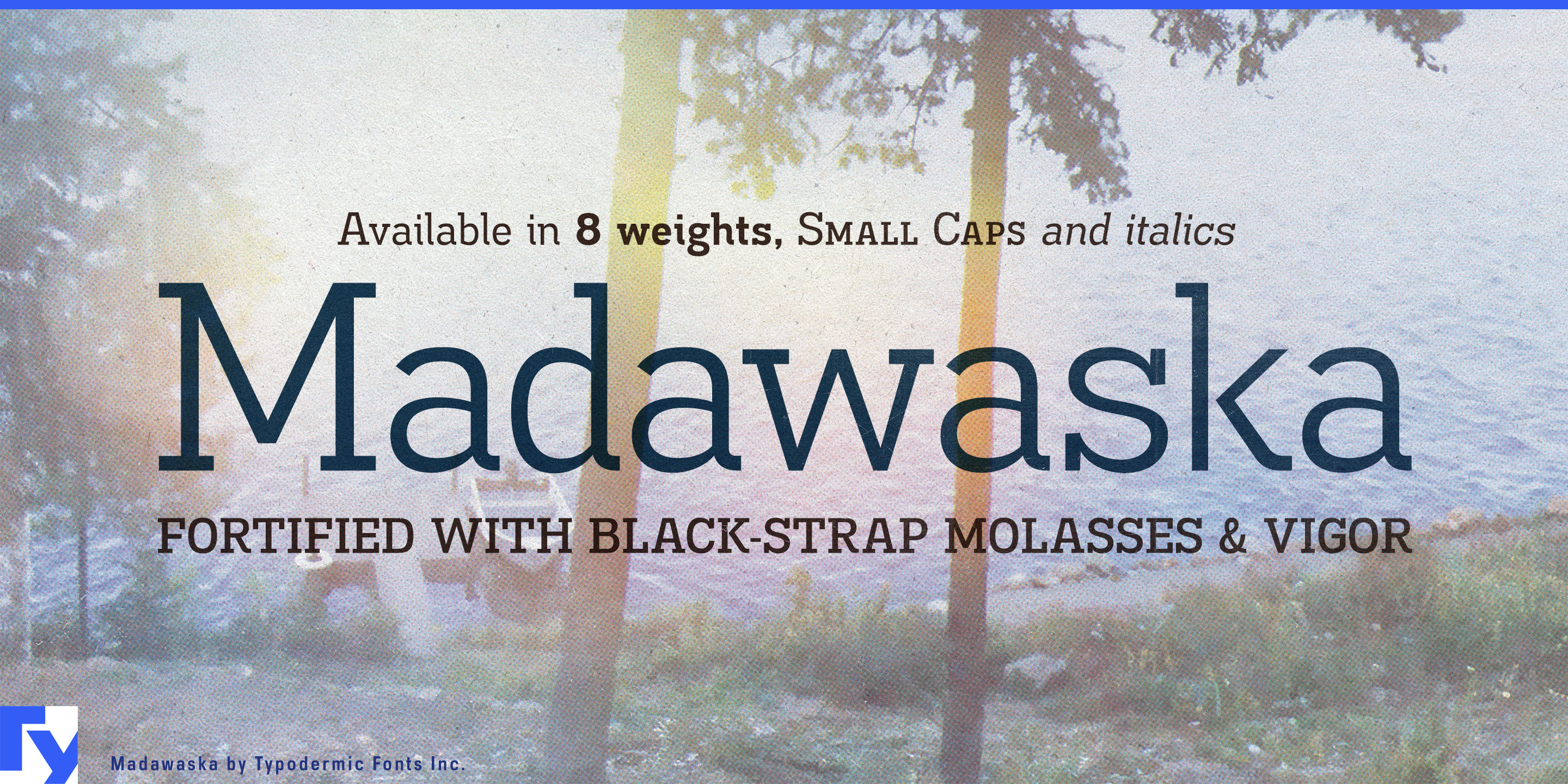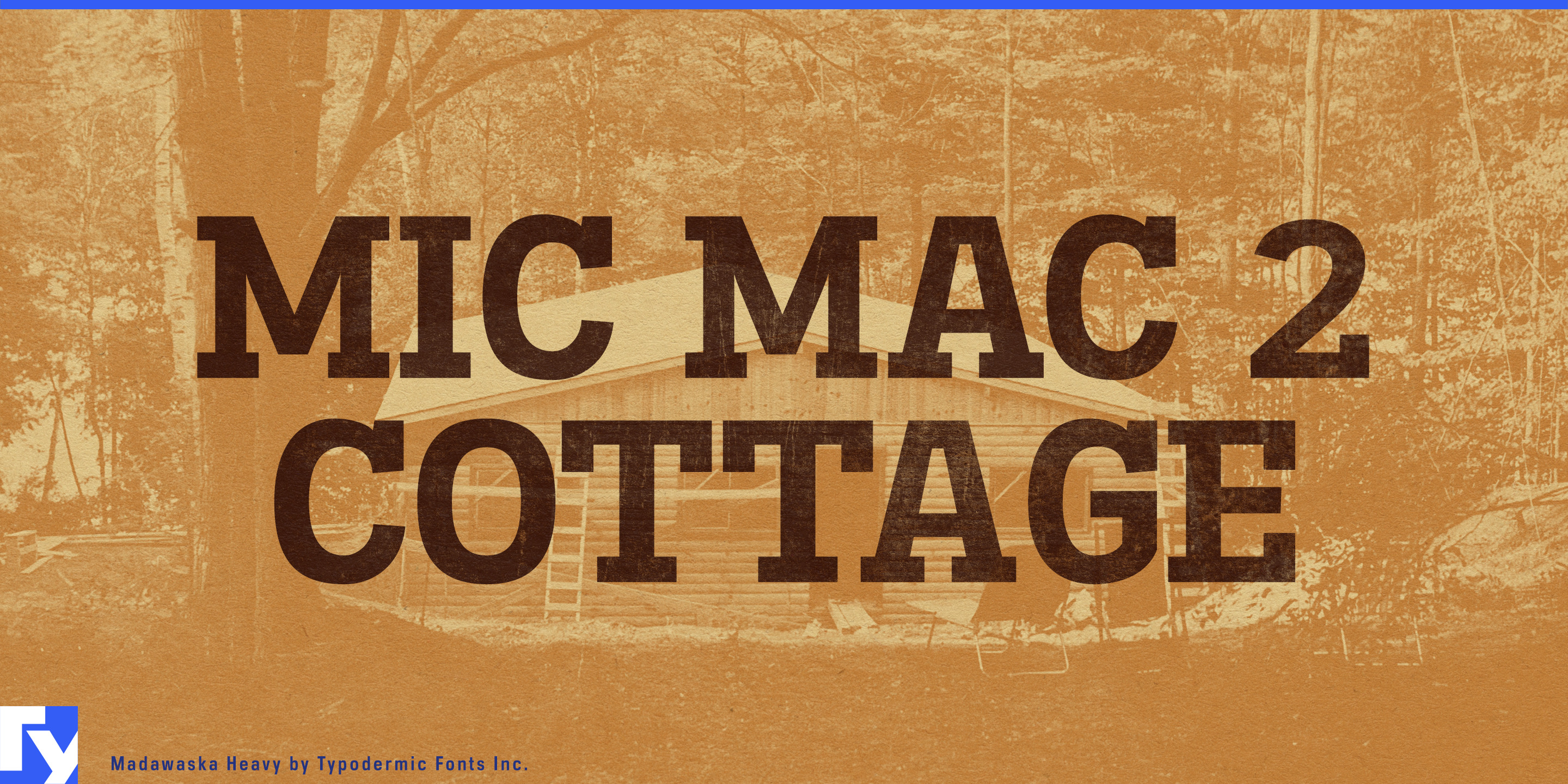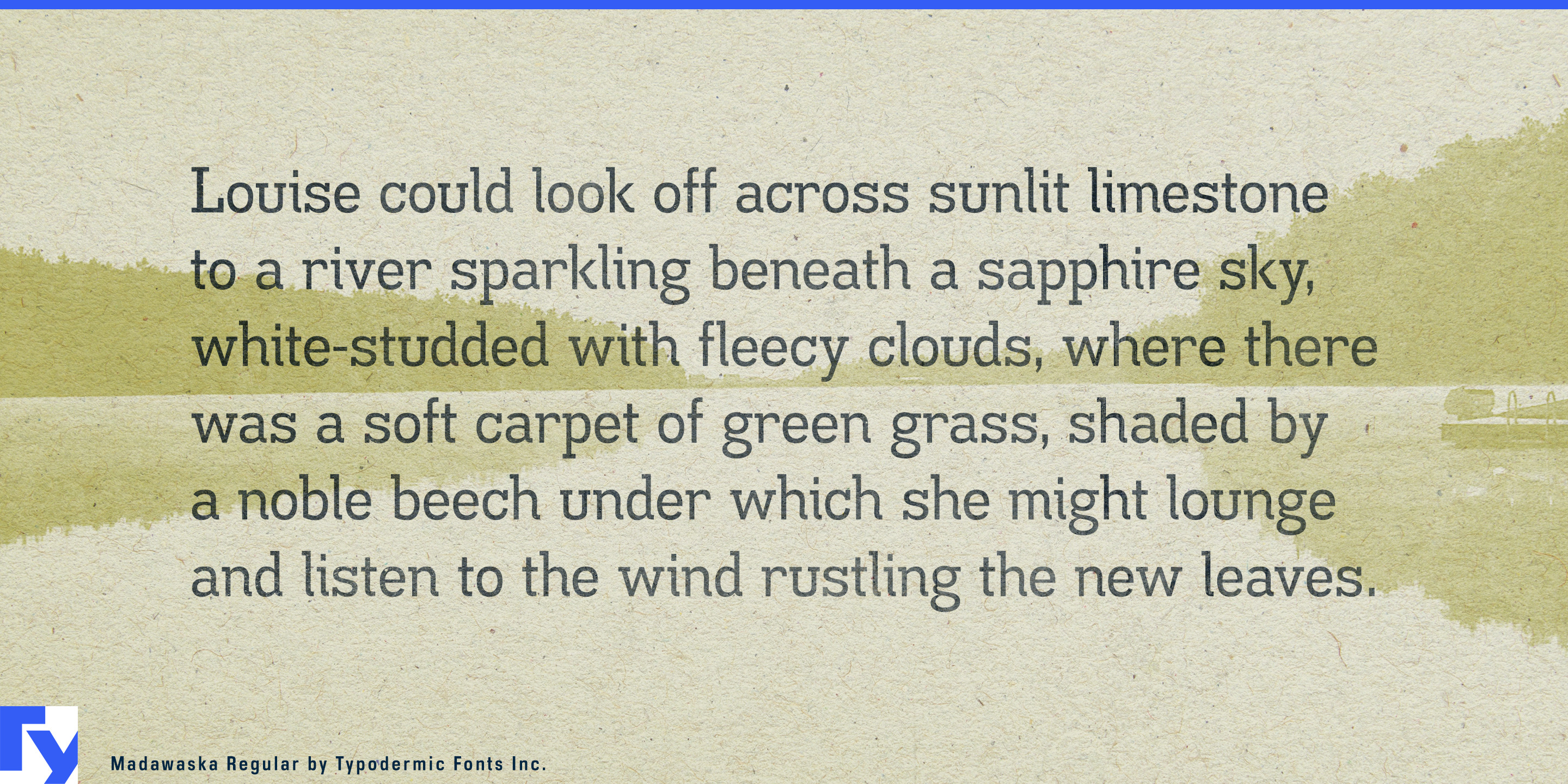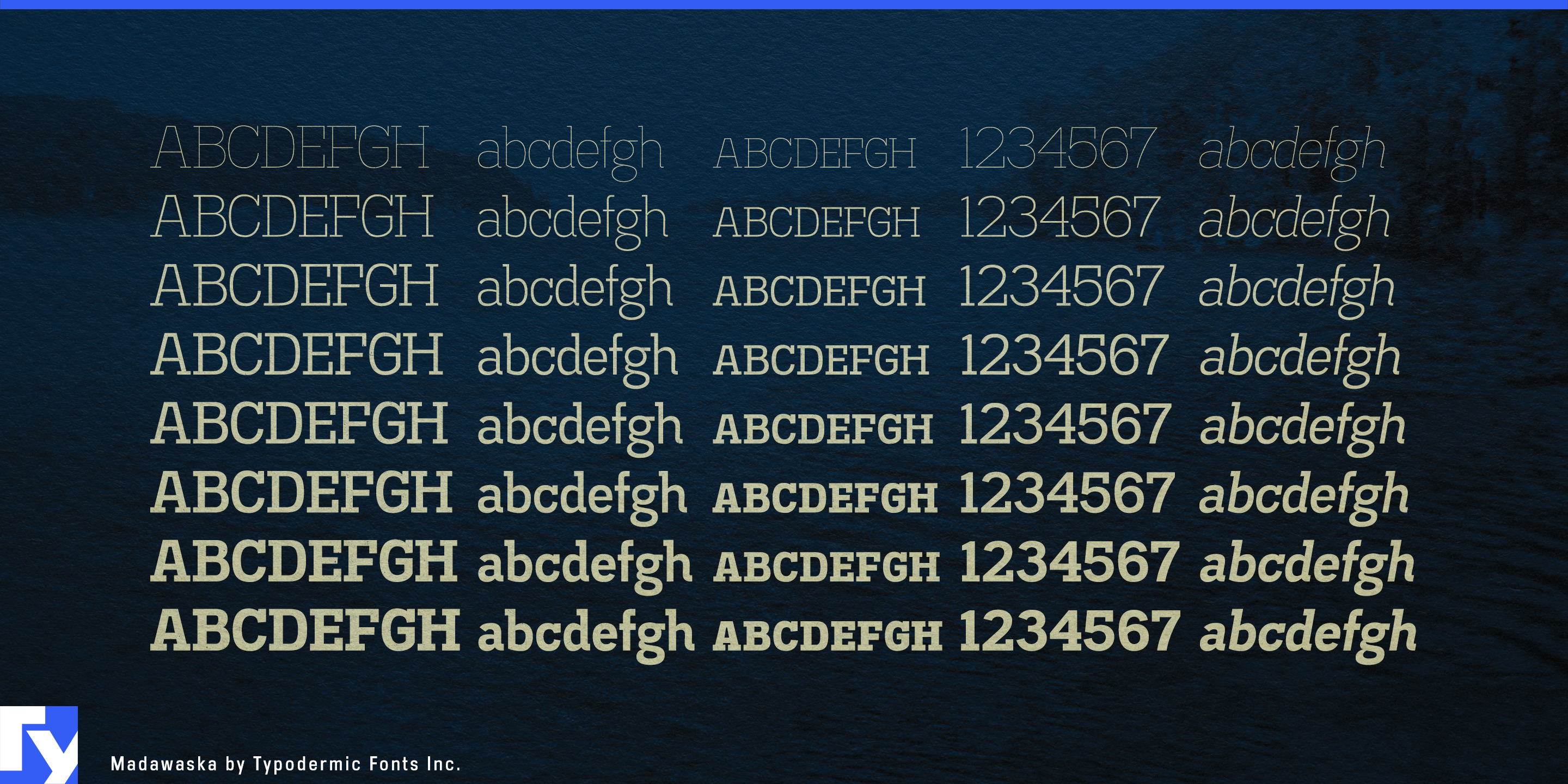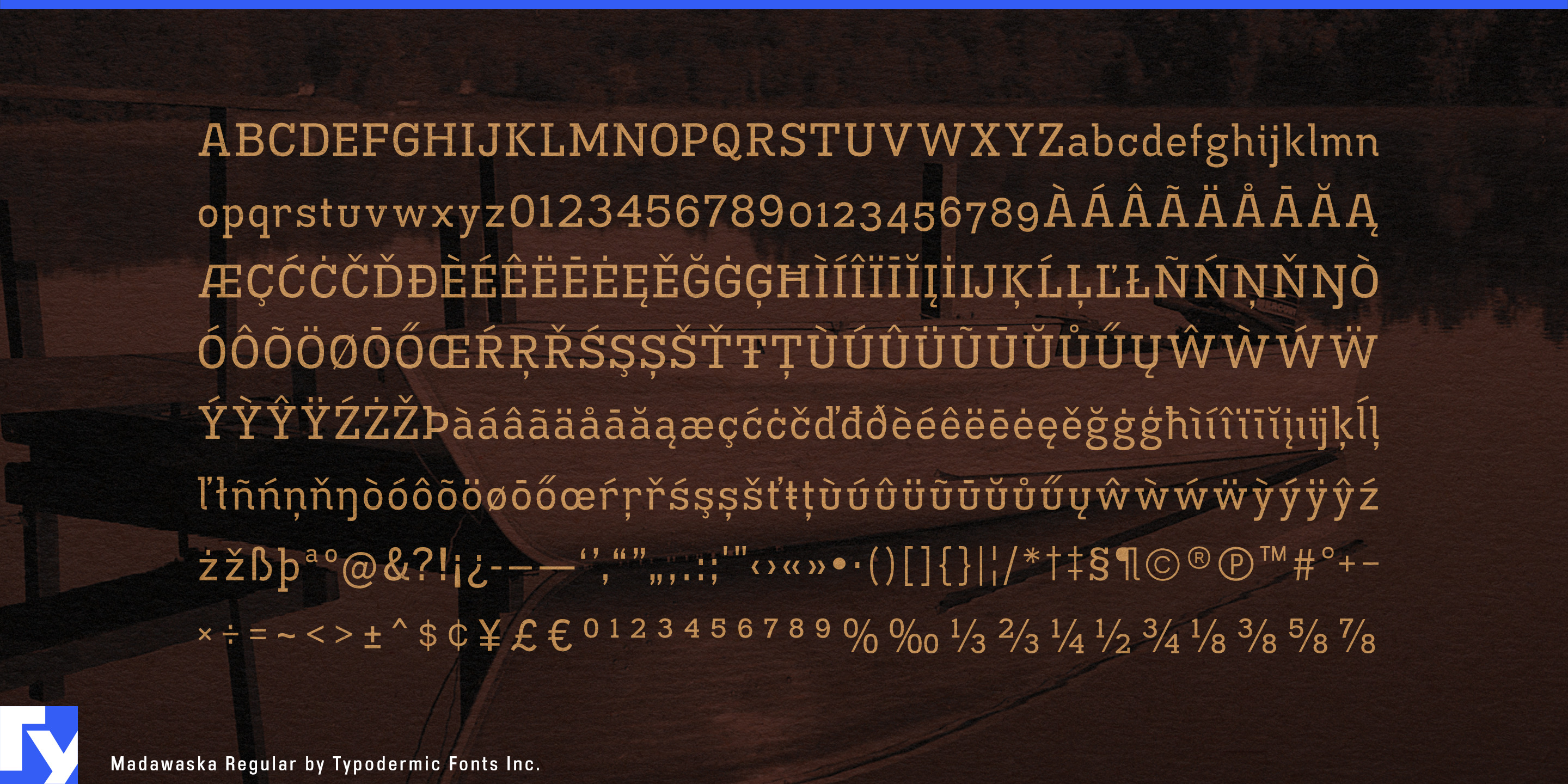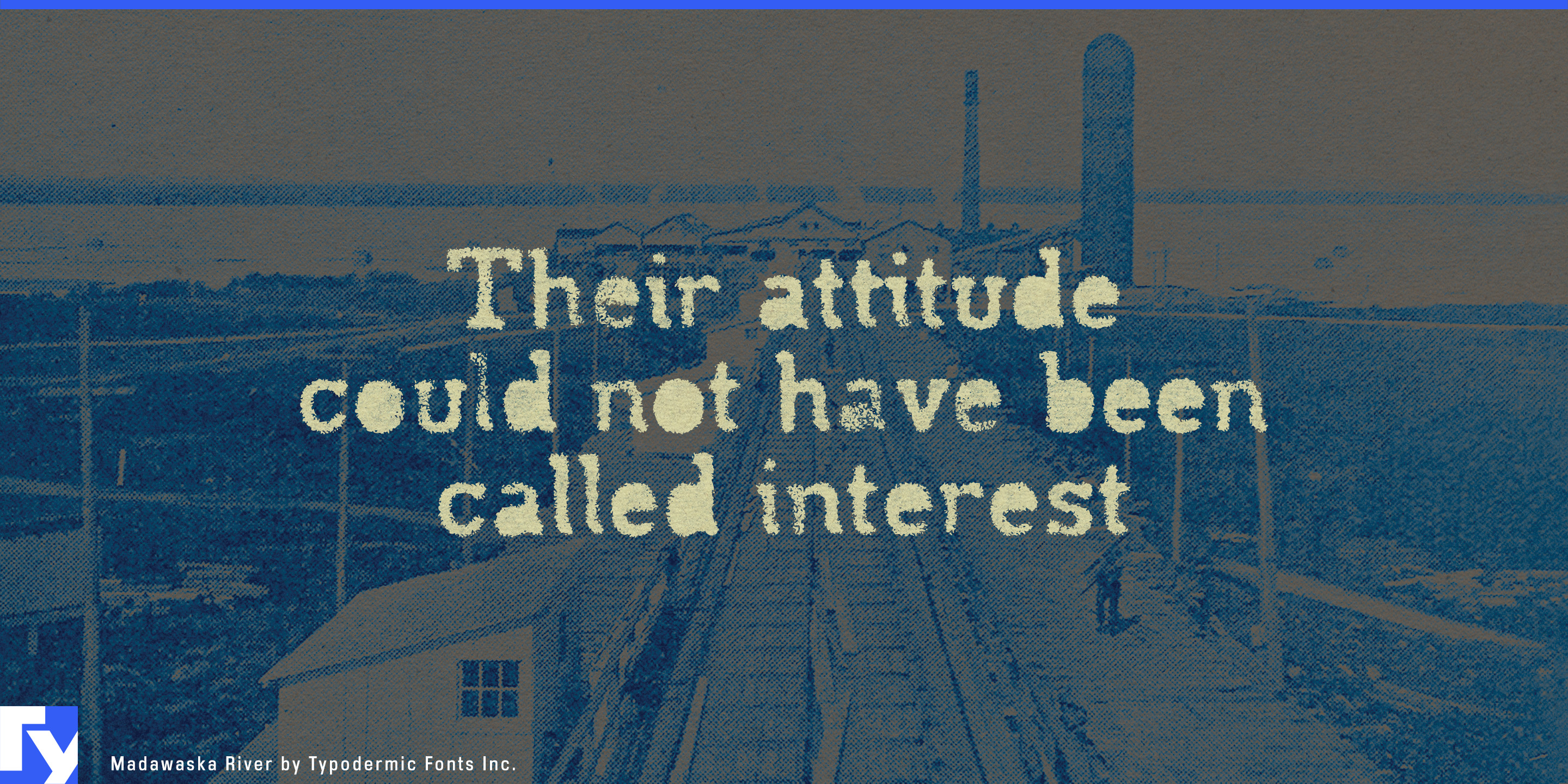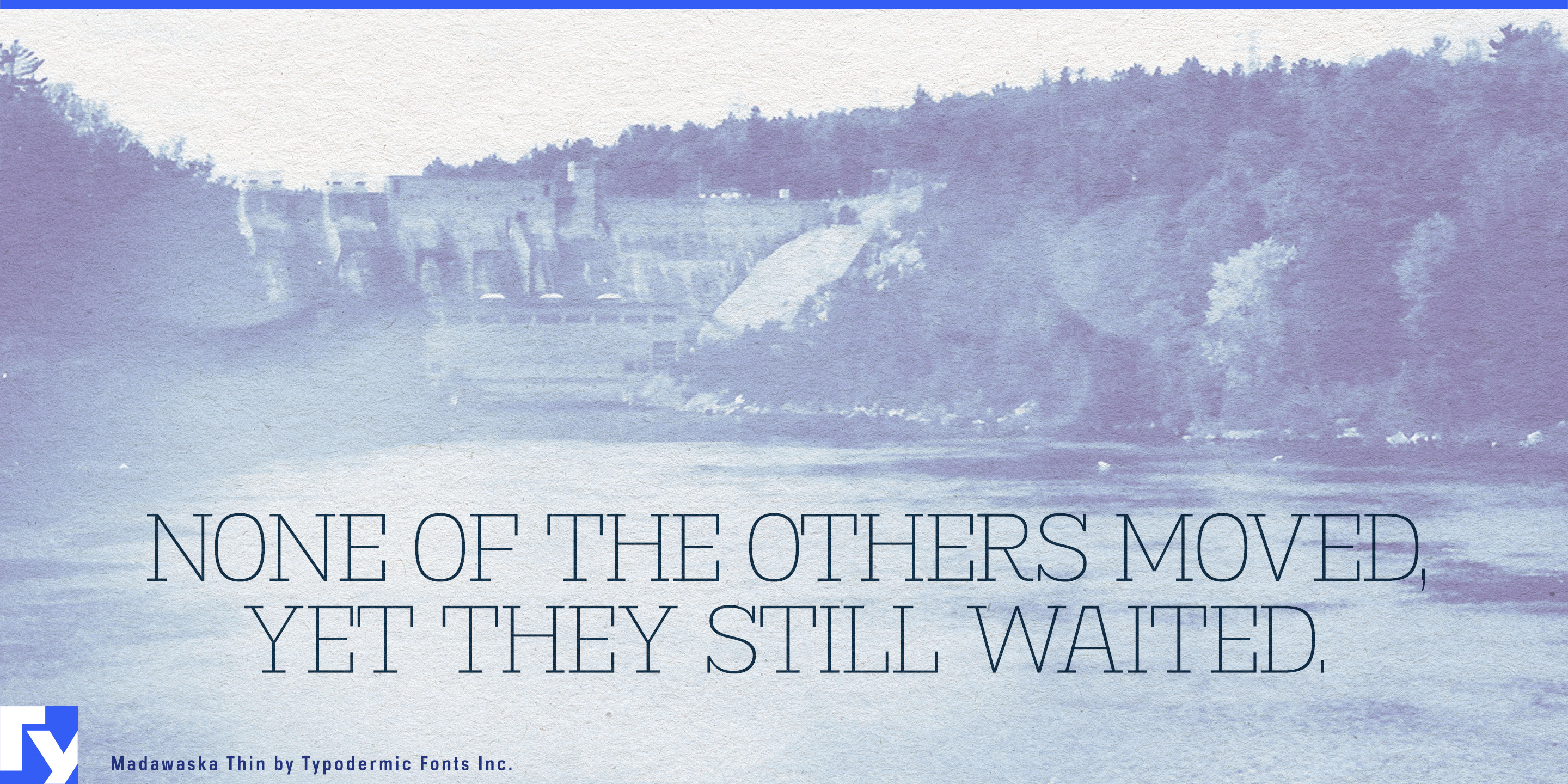
Madawaska
Madawaska carries the poise of a classic slab serif, but with details that keep it from feeling like a museum piece. Its lowercase mixes sturdy serifs with a few unexpected cuts and quirks, lending warmth and individuality to an otherwise solid, dependable structure. The proportions strike a comfortable balance, neither compressed nor sprawling, making it just as effective in a full page of editorial text as it is in a bold, high-impact headline.
Two textured styles—Jeans and River—add tactile variation, evoking the look of ink pressed into paper or letters weathered by time. These aren’t gimmick effects; they bring authenticity to vintage packaging, heritage branding, book covers, and other projects where a handcrafted impression matters. Italics keep their integrity, avoiding excess flourish so they remain clear in running text, captions, and display lines alike.
While there’s a trace of old-world construction in its letterforms, that’s an advantage here: Madawaska offers a kind of timelessness that stands apart from clean-but-clinical modern slabs. It’s a typeface that feels rooted, versatile, and ready for projects where clarity, personality, and a touch of tradition all need to work together.